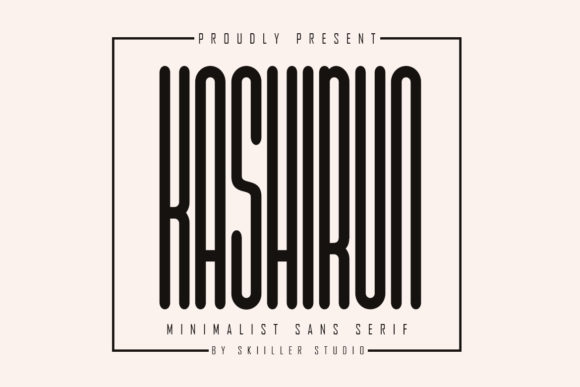
Unleash your creative spirit with Kashirun Font, an exquisite condensed sans serif masterpiece. This font family is a stylish symphony of elegance, class, and modernity, guaranteed to inspire and elevate your designs.
Kashirun Font is artistry personified, boasting an array of styles to suit every taste. From the timeless beauty of its regular and italic versions to the bold and captivating impact of its bold and bold italic variants, Kashirun offers a versatile palette for your creative expression.
Crafted with precision and passion by the renowned Skiiller Studio, Kashirun Font embodies the essence of sophistication. It's a font that speaks volumes, capturing attention with its clean lines and alluring curves. Let your designs transcend mediocrity and embrace the allure of excellence with Kashirun Font.
Beyond its aesthetic brilliance, Kashirun Font is a functional powerhouse that empowers you with limitless possibilities. Its condensed nature imbues your text with a sense of captivating elegance, while its sans serif design ensures effortless readability. Whether you seek to craft alluring logos, captivating headlines, or compelling body text, Kashirun Font is your ultimate companion.